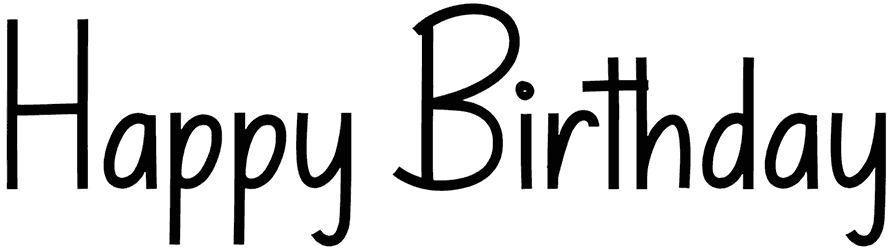
Happy Birthday Font
If you’re in need of a fitting font for a child-oriented design or product, look no further than the Happy Birthday font! It is a happy birthday font that presents a clean, playful appearance. Best of all, it’s available for immediate download at no cost to you through RB’s font library.
Don’t just settle for an ordinary font when you can add an extra touch of youthful charm to your project with Happy Birthday.